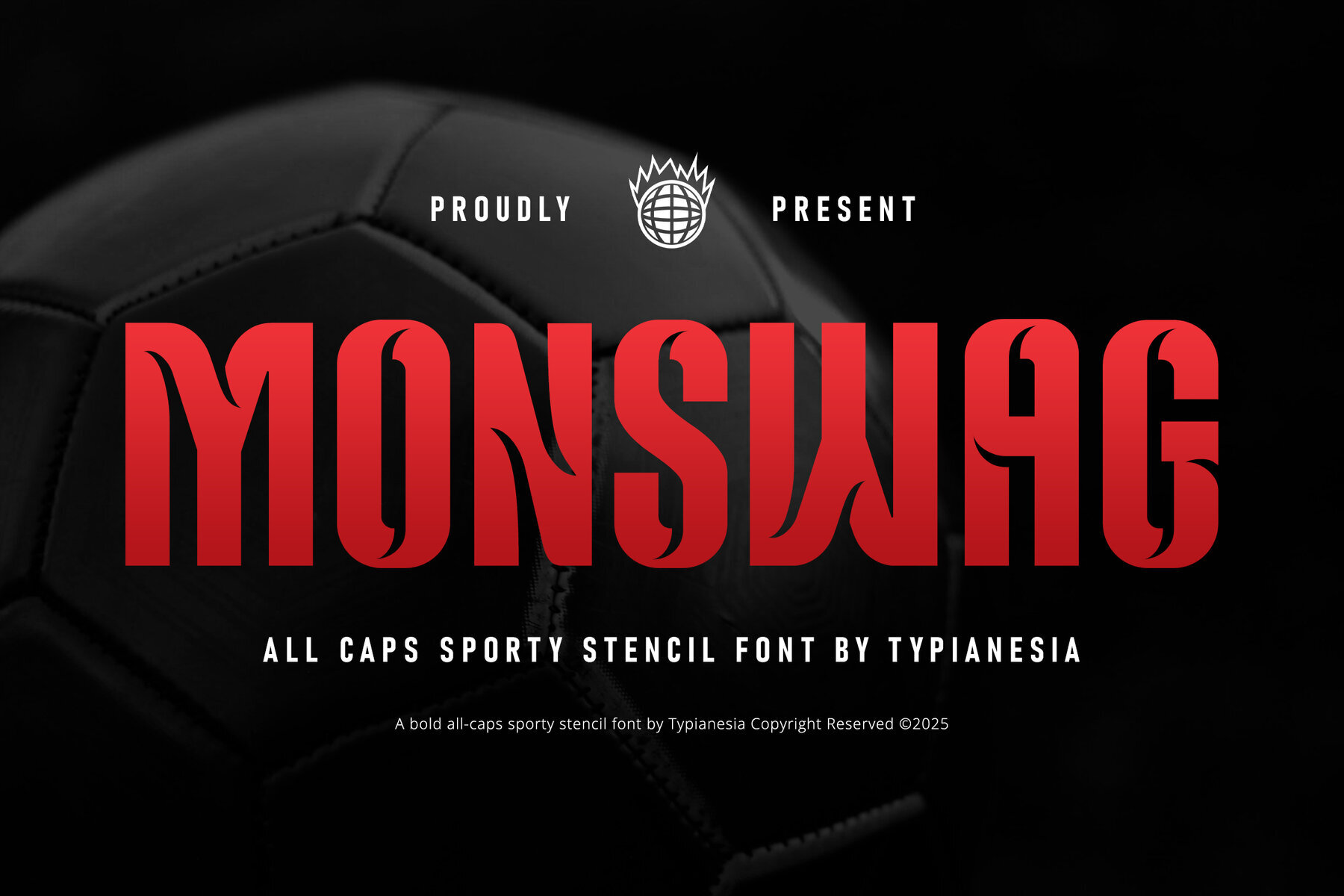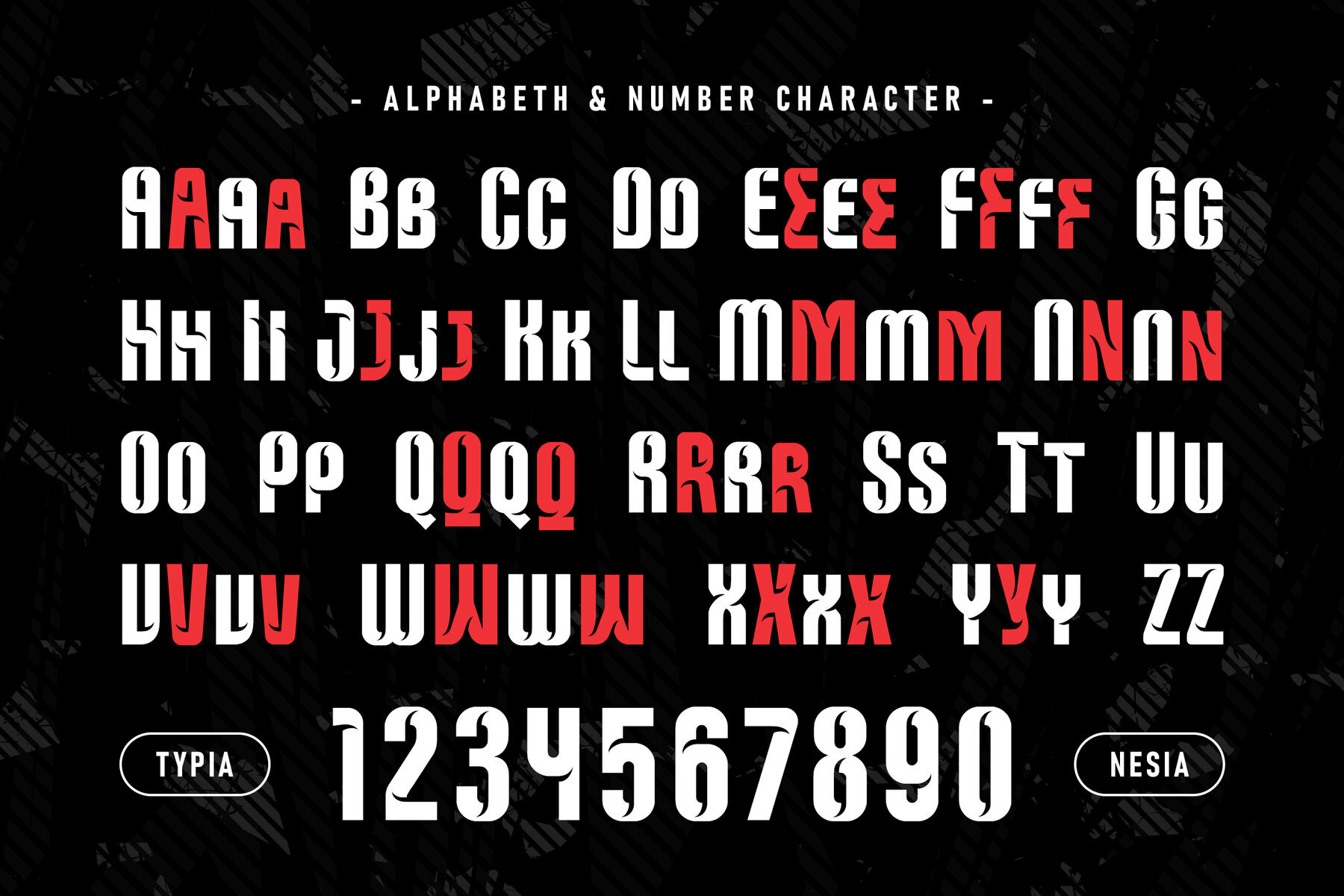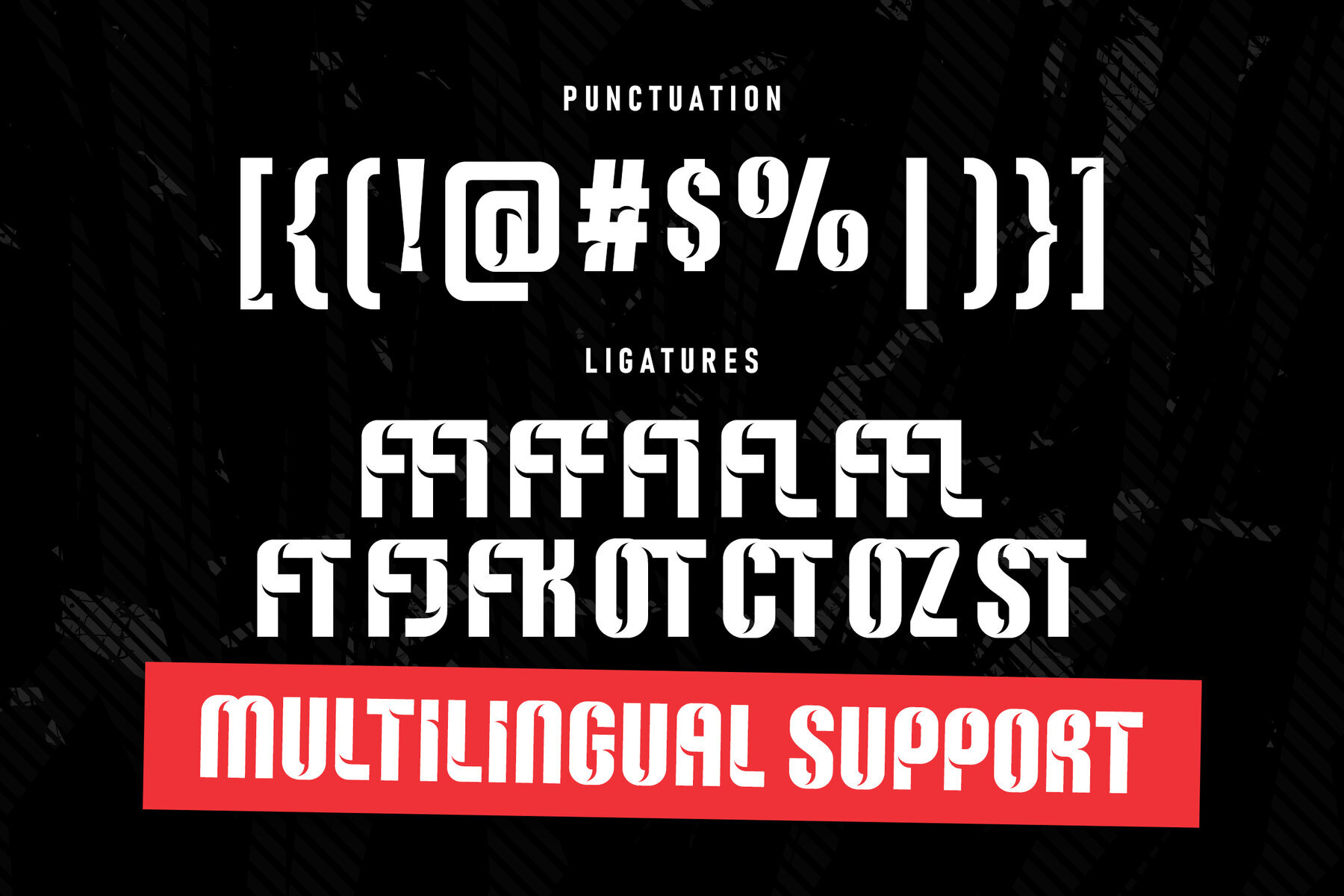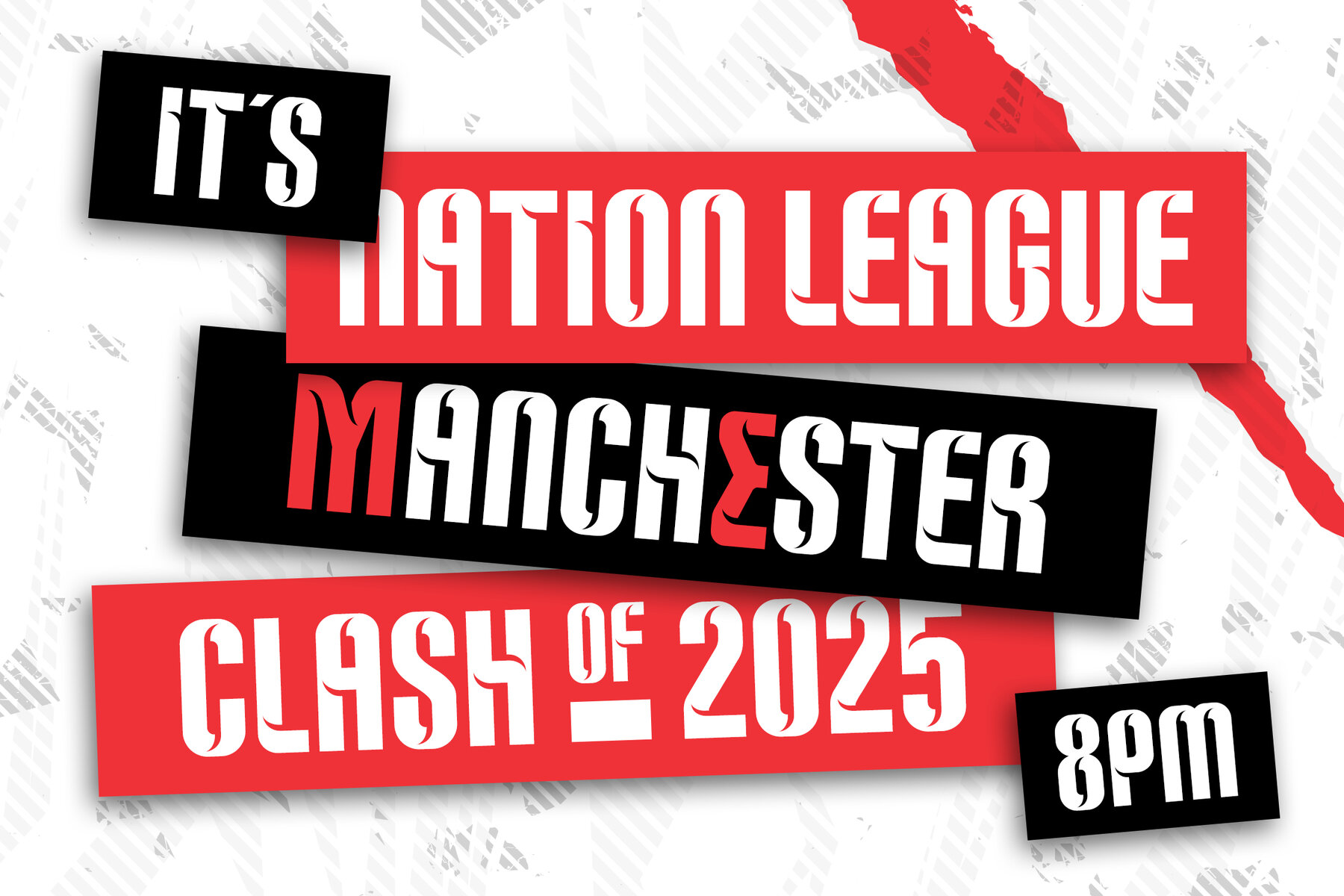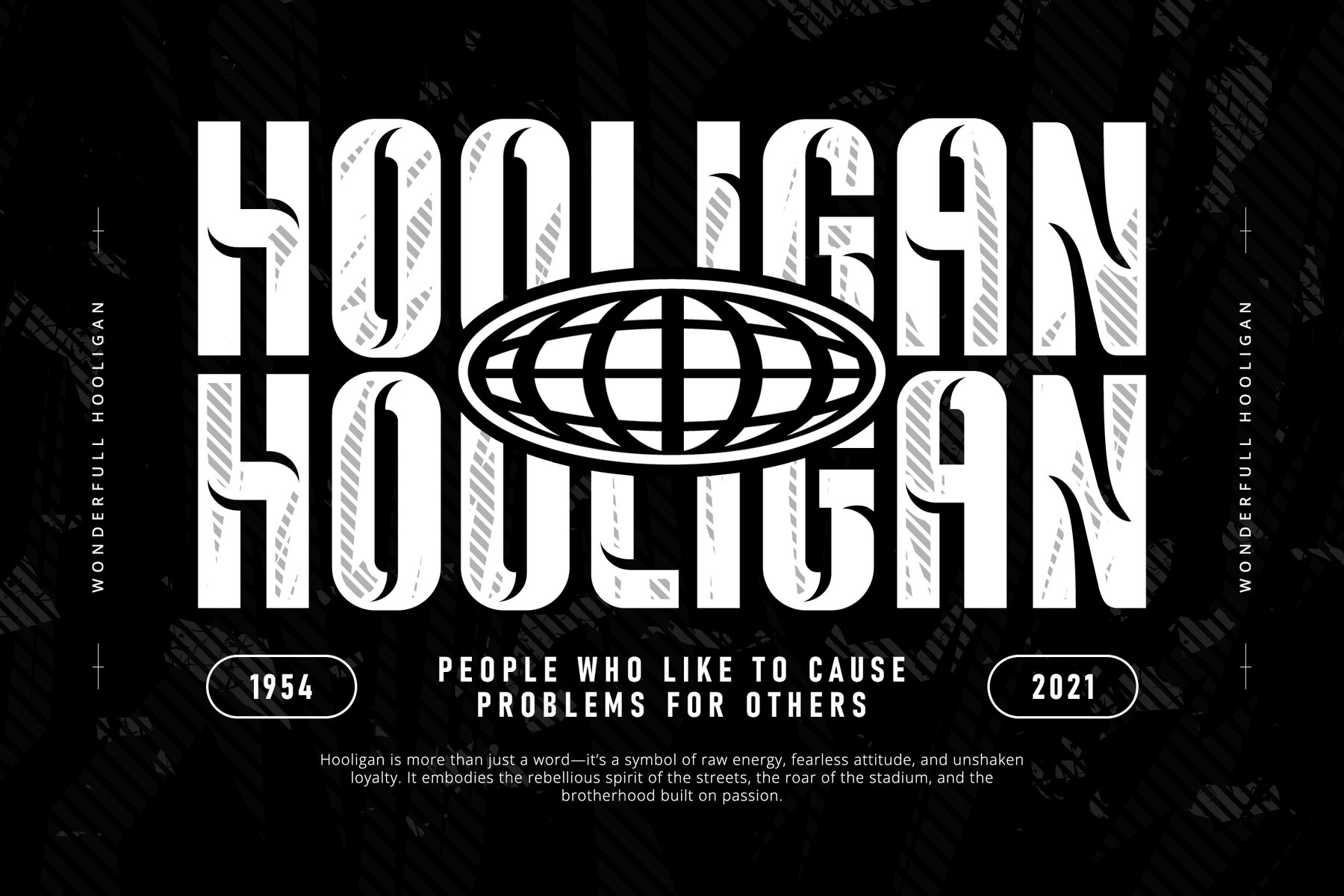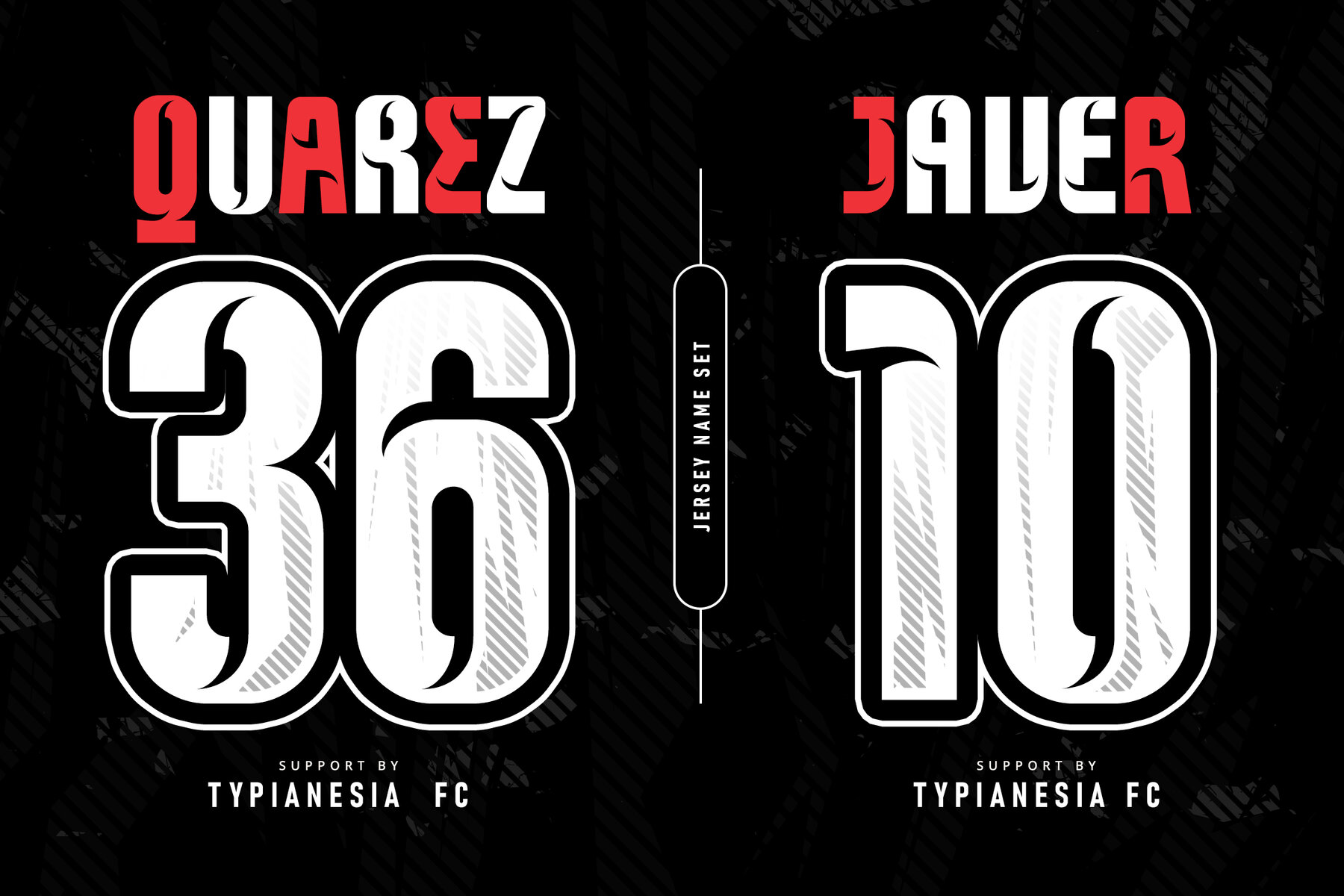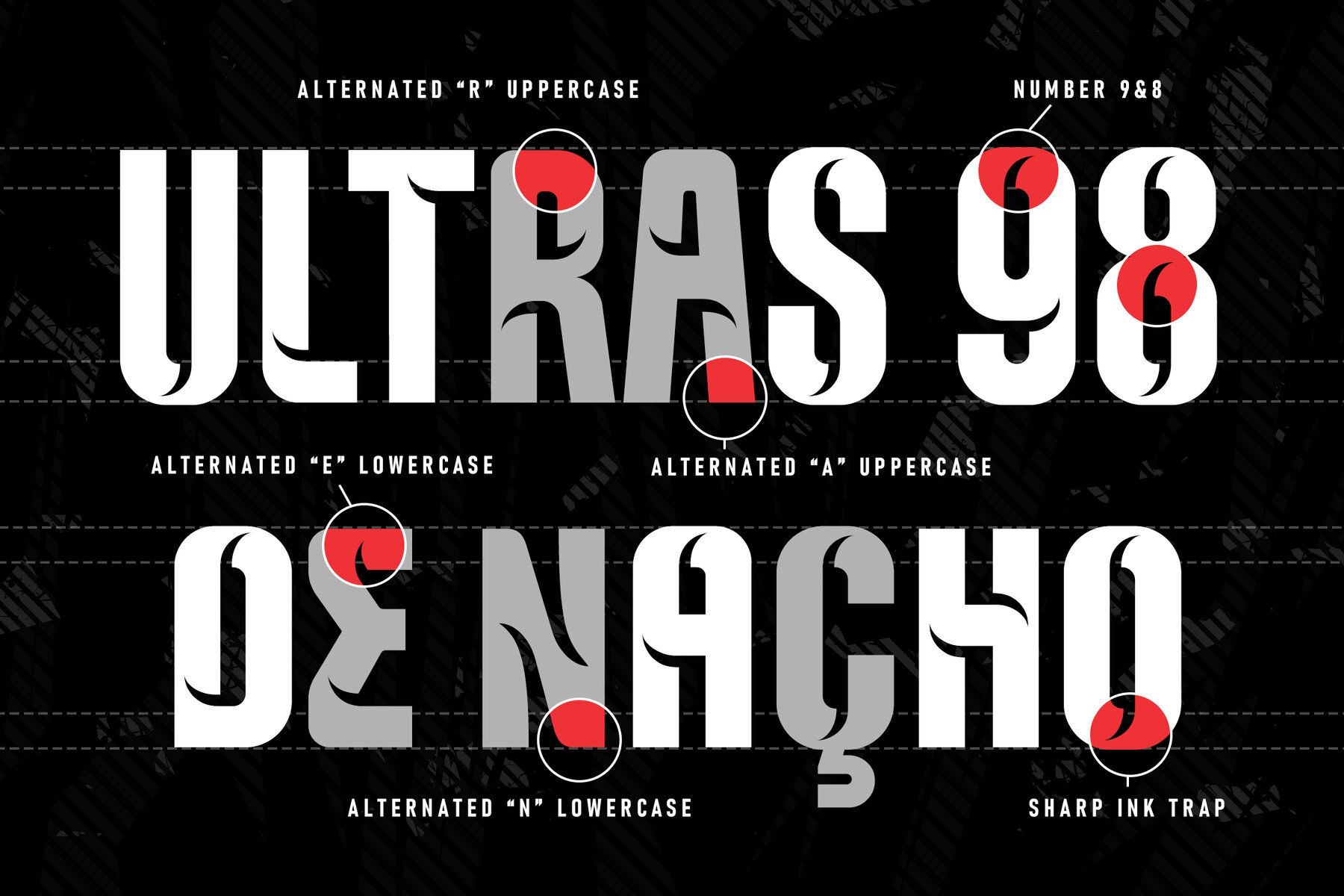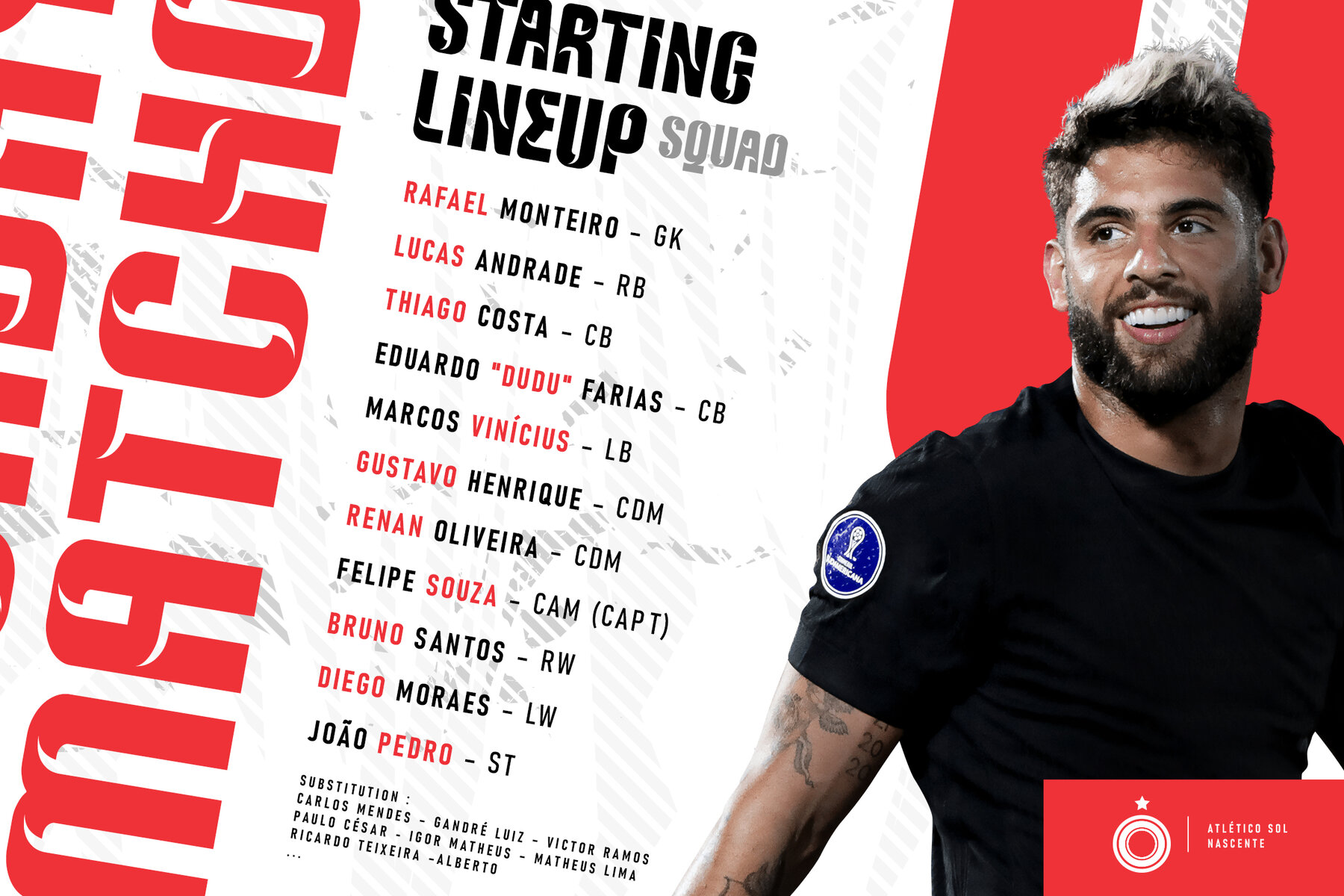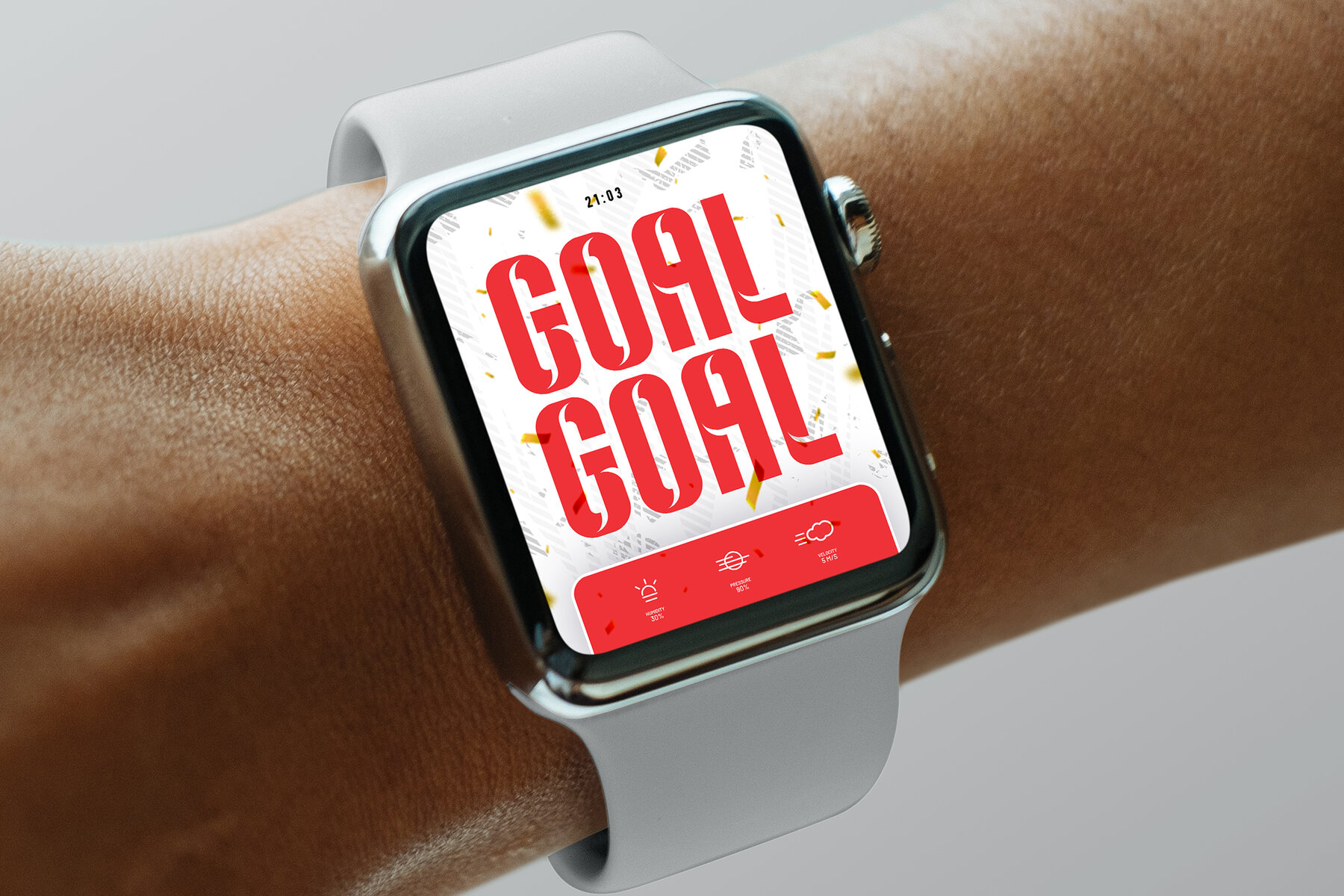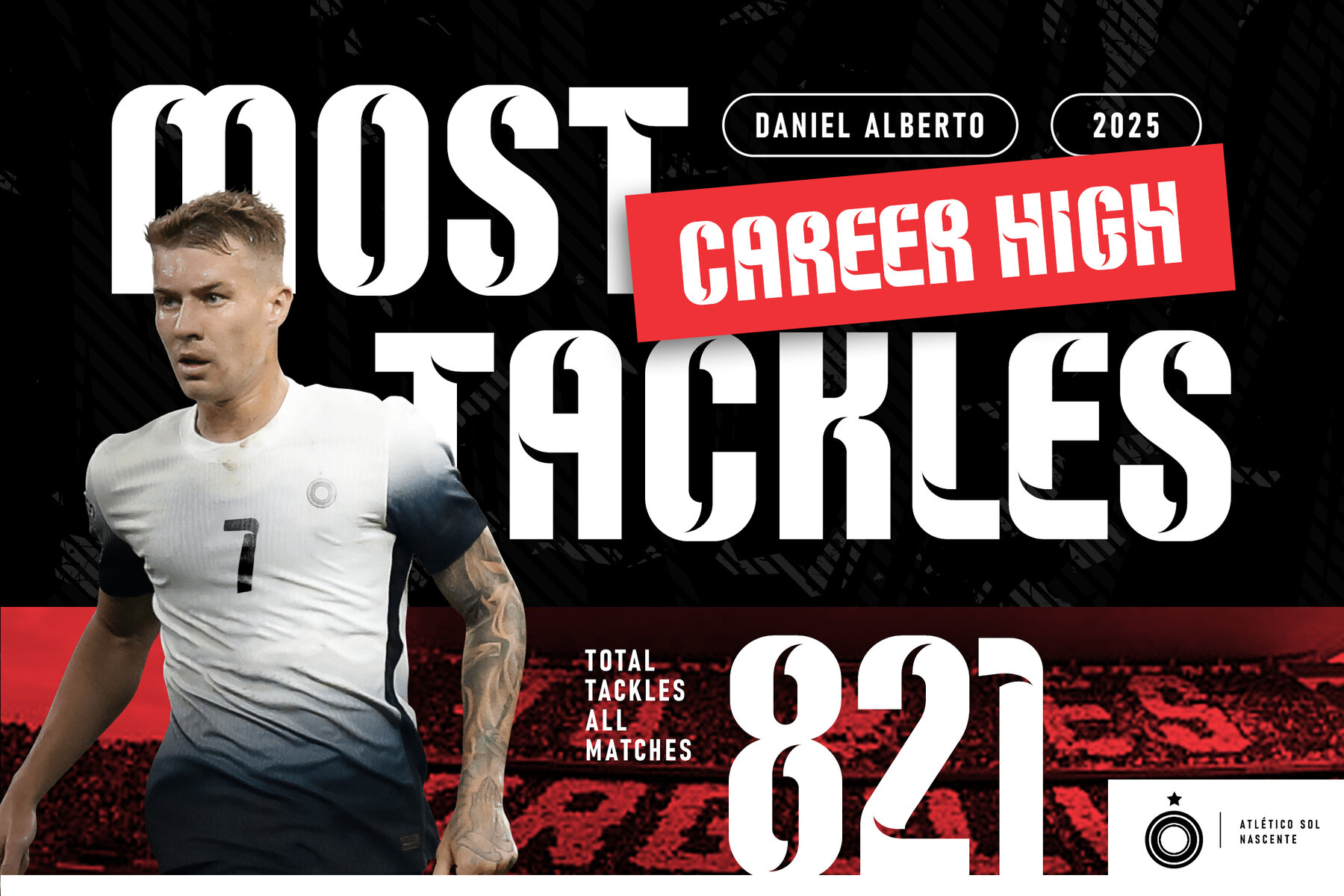
Monswag Font
Monswag Regular
Monswag is a striking modern condensed jersey sport font, crafted for projects that demand speed, energy, and strong visual presence. Its tall, bold letters and tight structure offer a pronounced look, accentuated by unique stencil-cut detailing. This typeface thrives in high-impact settings, making it well-suited for headlines, team identities, and any application where display space is at a premium. Monswag delivers reliable performance for sporty branding, offering professional-quality nameset and numberset typography ideal for jerseys and team logos. The design adapts seamlessly to tech logos, high-energy graphics, urban streetwear, and creative projects that require a contemporary, confident edge. Its combination of style and clarity brings a distinct, modern flair to any visual identity.Monswag – Modern Condensed Sport Font for Bold Design